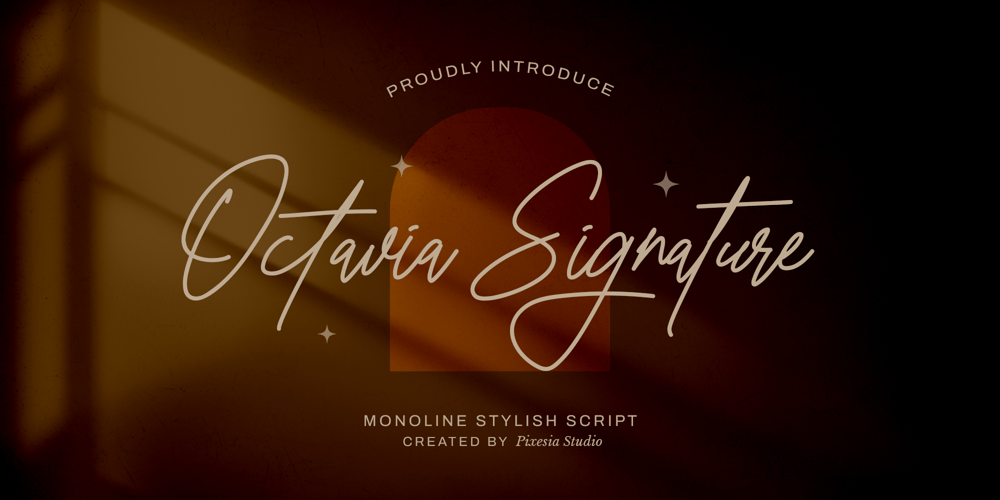
Octavia Signature Font Family was designed by Abul Almaududi and published by Pixesia Studio. Octavia Signature contains 1 styles and family package options. Introducing Octavia Signature – Script Business FontOctavia Signature is a monoline script font that effortlessly blends simplicity with style. With its clean lines and graceful curves, Octavia Signature exudes a warm and welcoming vibe, making it the ideal choice for your creative projects.Octavia Signature is perfectly suited for branding projects, logo, wedding designs, social media posts, advertisements, product packaging, product designs, label, photography, watermark, invitation, stationery and any projects seeking handwritten taste.FEATURES- Stylistic Alternates- Ligatures- Uppercase and Lowercase letters- Numbering and Punctuations- Works on PC or Mac- Simple Installation- PUA Encoded Characters – Easily accessible without additional design software.- Support Adobe Illustrator, Adobe Photoshop, Adobe InDesign, also works on Microsoft Word- Multilingual Support for 84 languages including Afrikaans, Albanian, Basque, Bosnian, Catalan, Croatian, Czech, Danish, Dutch, English, Estonian, Filipino, Finnish, French, Galician, German, Hungarian, Indonesian, Irish, Italian, Lithuanian, Malay, Norwegian Bokmål, Polish, Portuguese, Slovak, Slovenian, Spanish, Swahili, Swedish, Turkish, ZuluHope you Like it.Thanks.